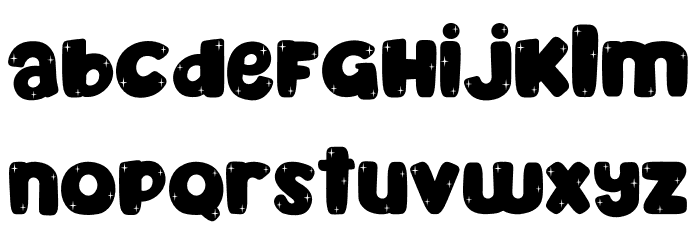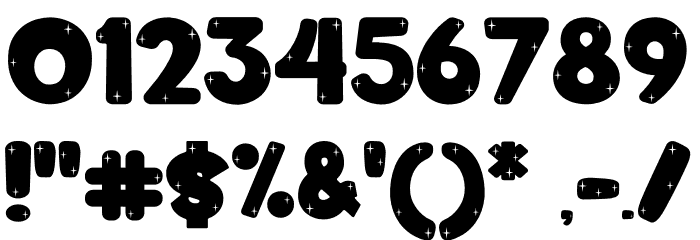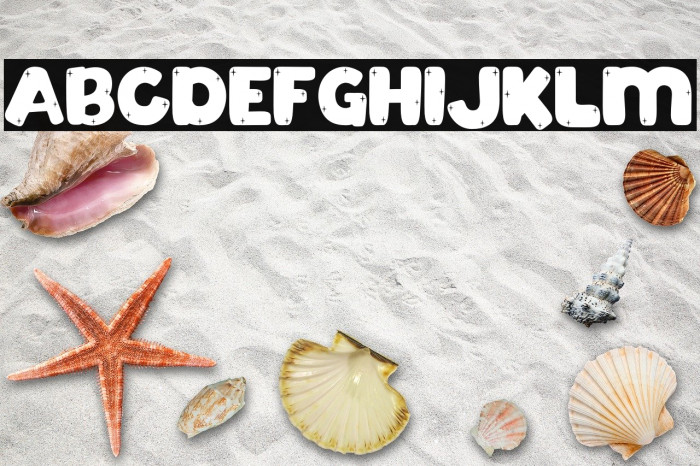
Mahoney Twinkle Font
This playful and bold font features rounded, thick characters with a whimsical touch. Each letter is adorned with small star-like accents, giving it a sparkling appearance. The characters are uniformly bold, with a consistent stroke width that maintains a sense of balance and harmony. The font's design is both eye-catching and fun, making it ideal for creative projects. Its unique style is perfect for capturing attention and adding a touch of magic to any design. The font includes a full set of uppercase and lowercase letters, numbers, and a variety of special characters, all maintaining the same decorative theme.
A bold, playful font with star-like accents on rounded characters.
- Proposed Projects: Ideal for children's books, party invitations, playful branding, and festive posters.